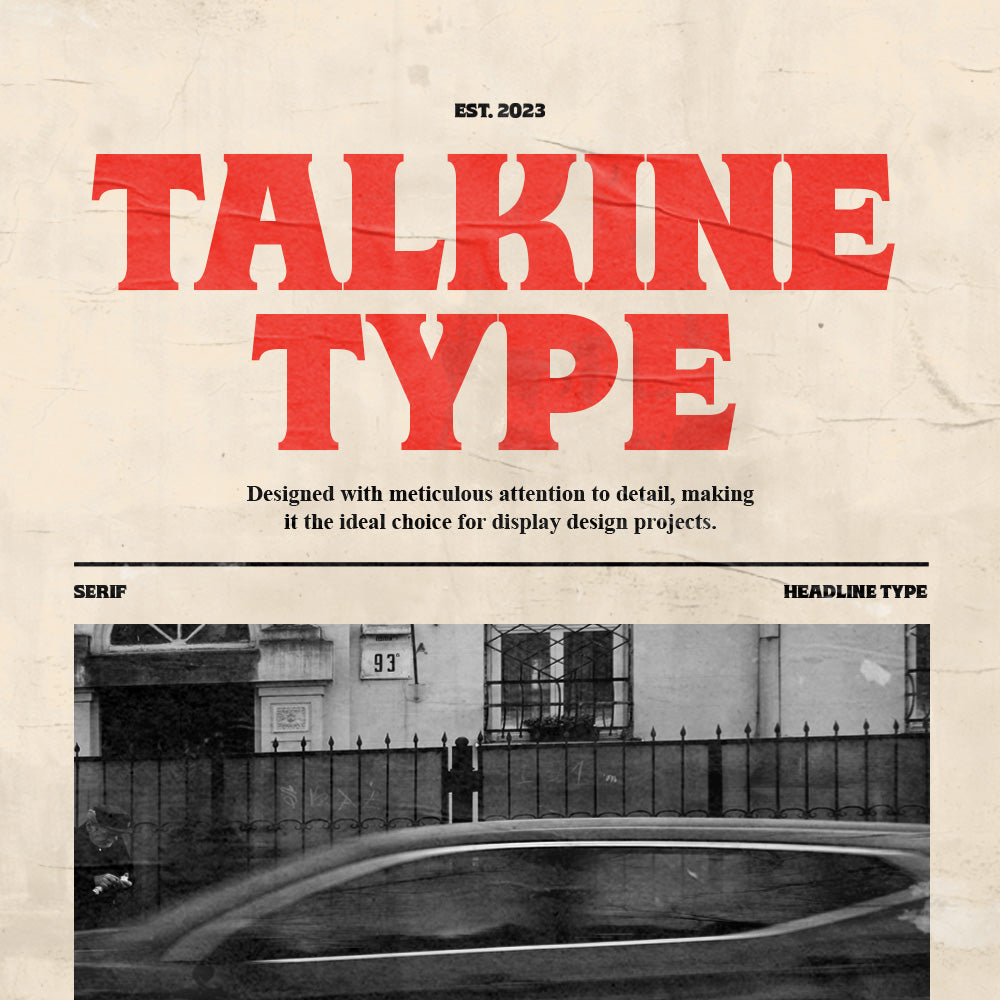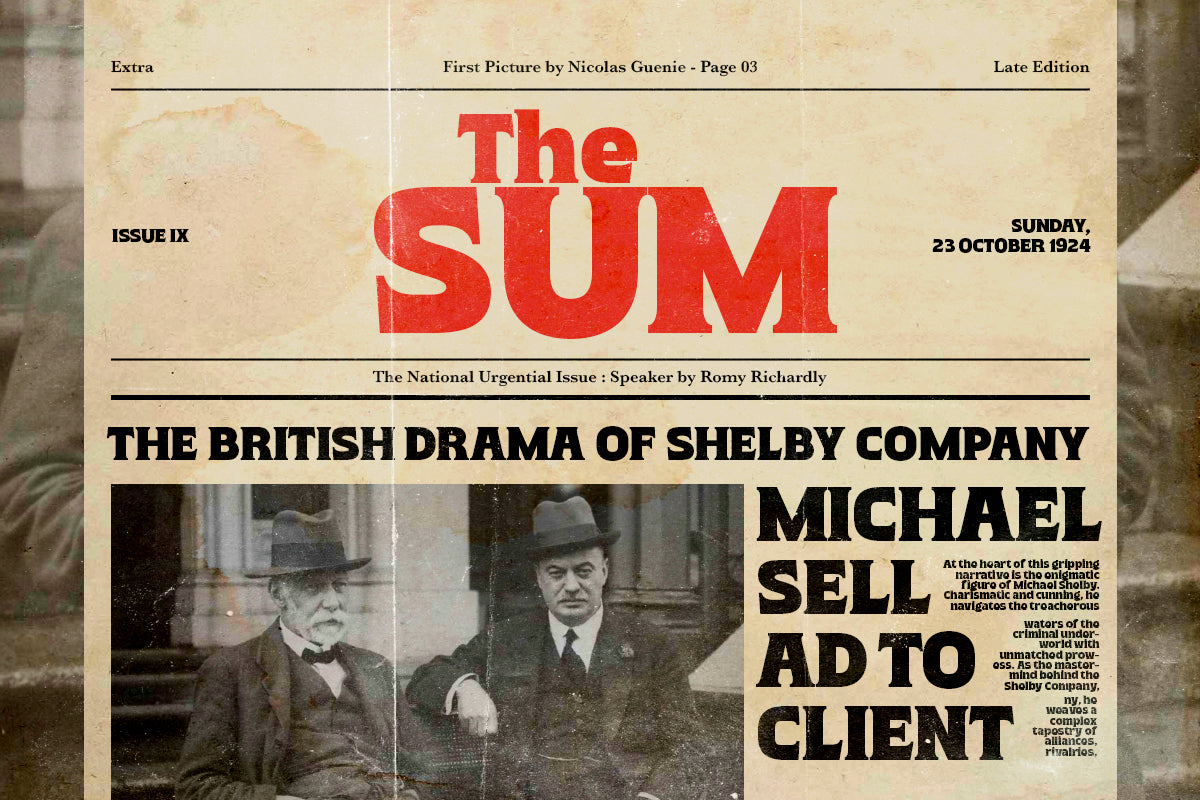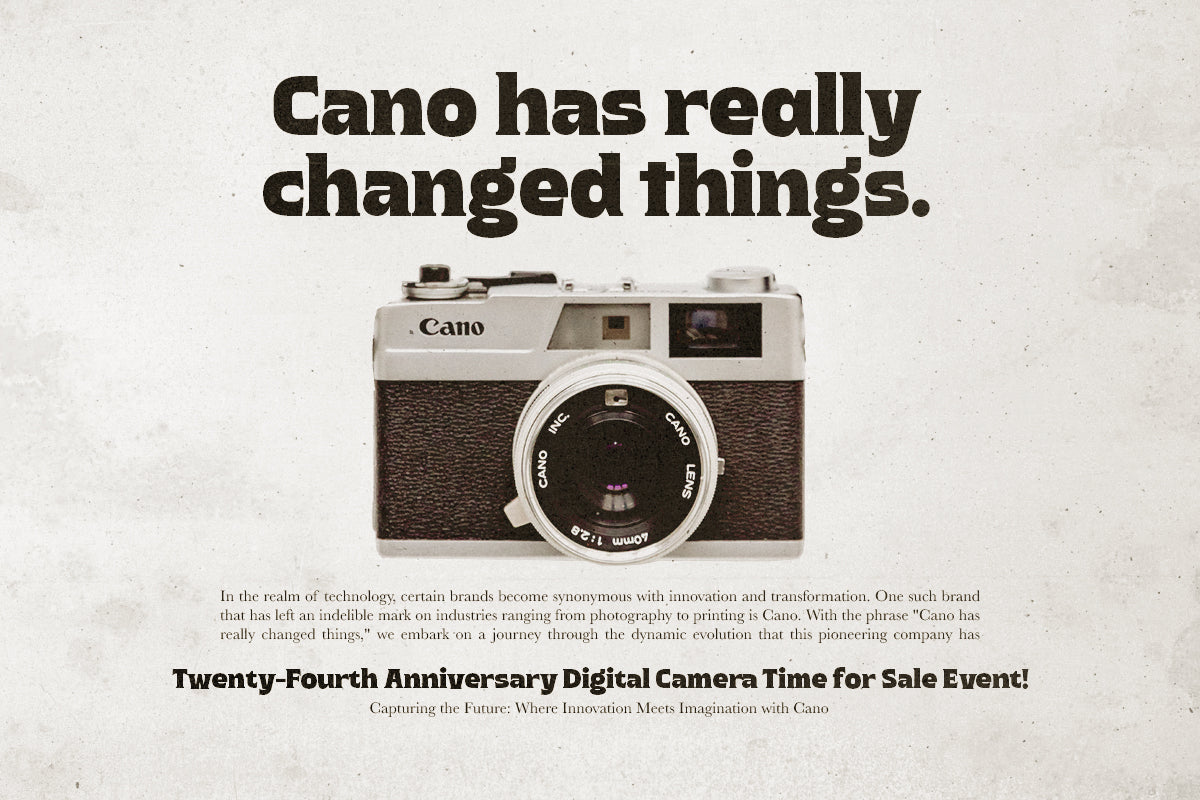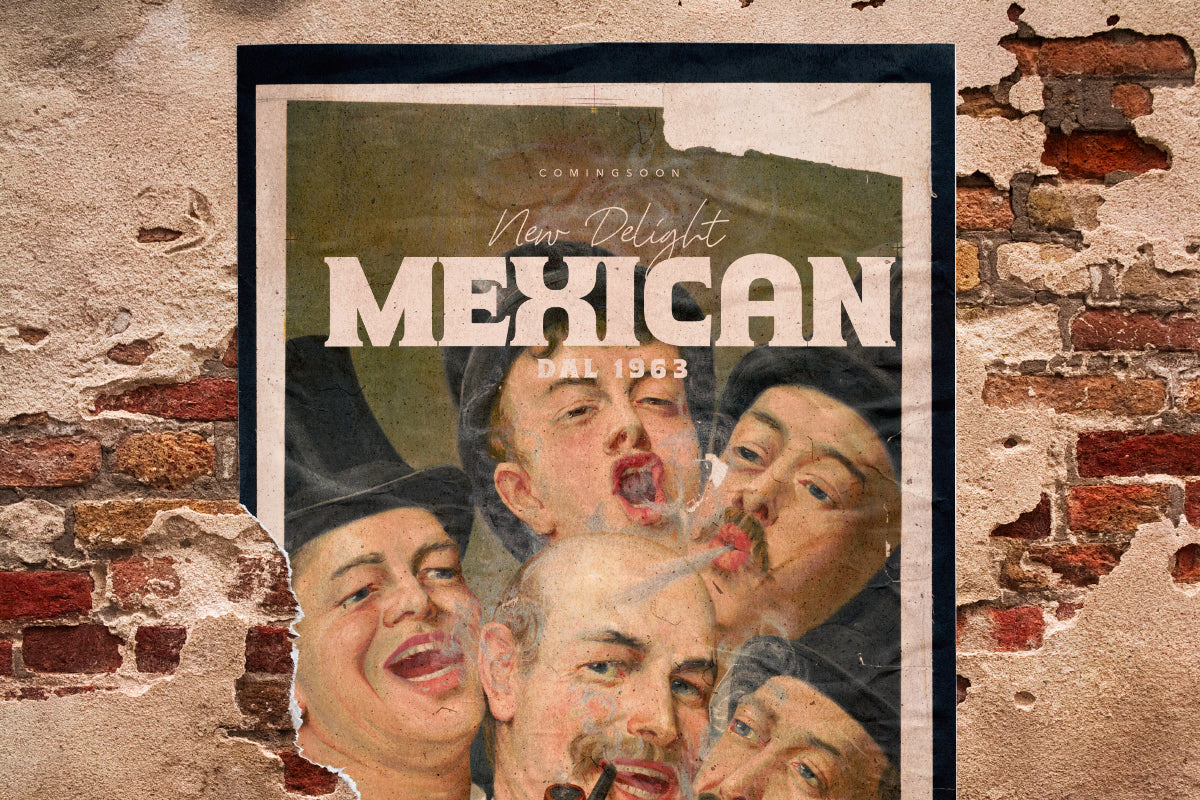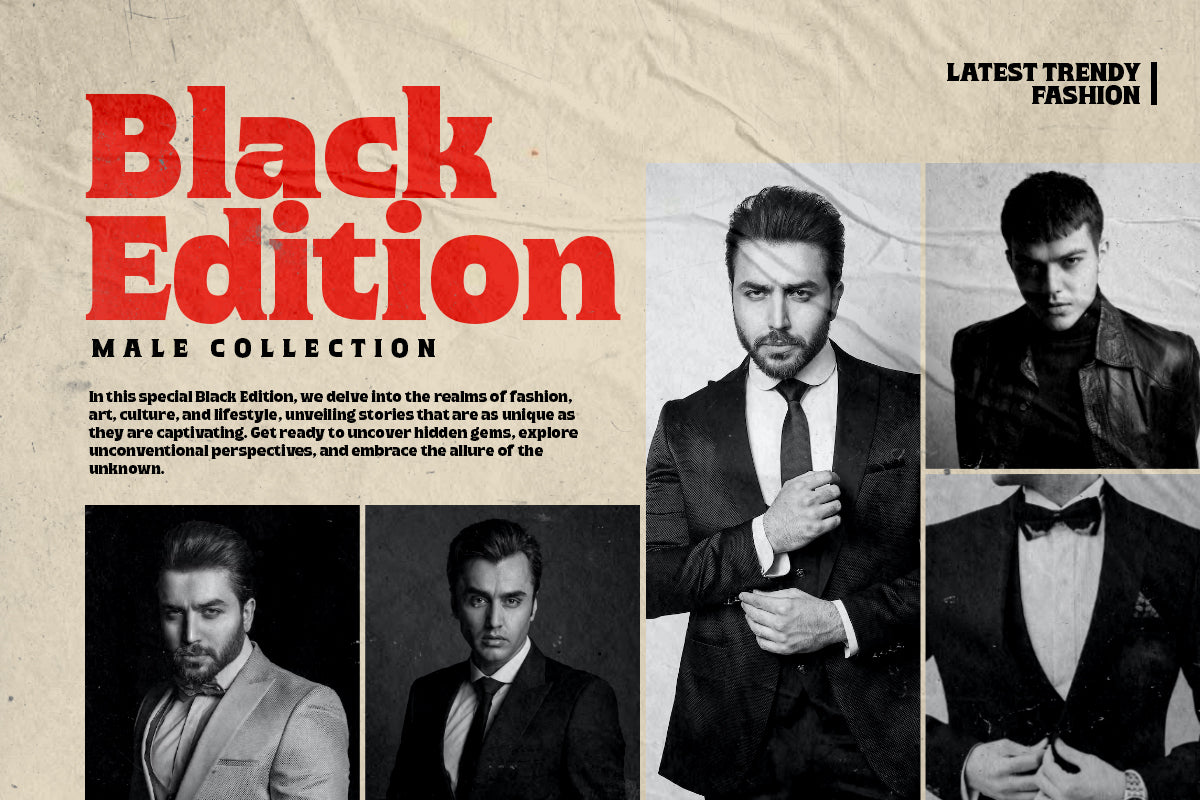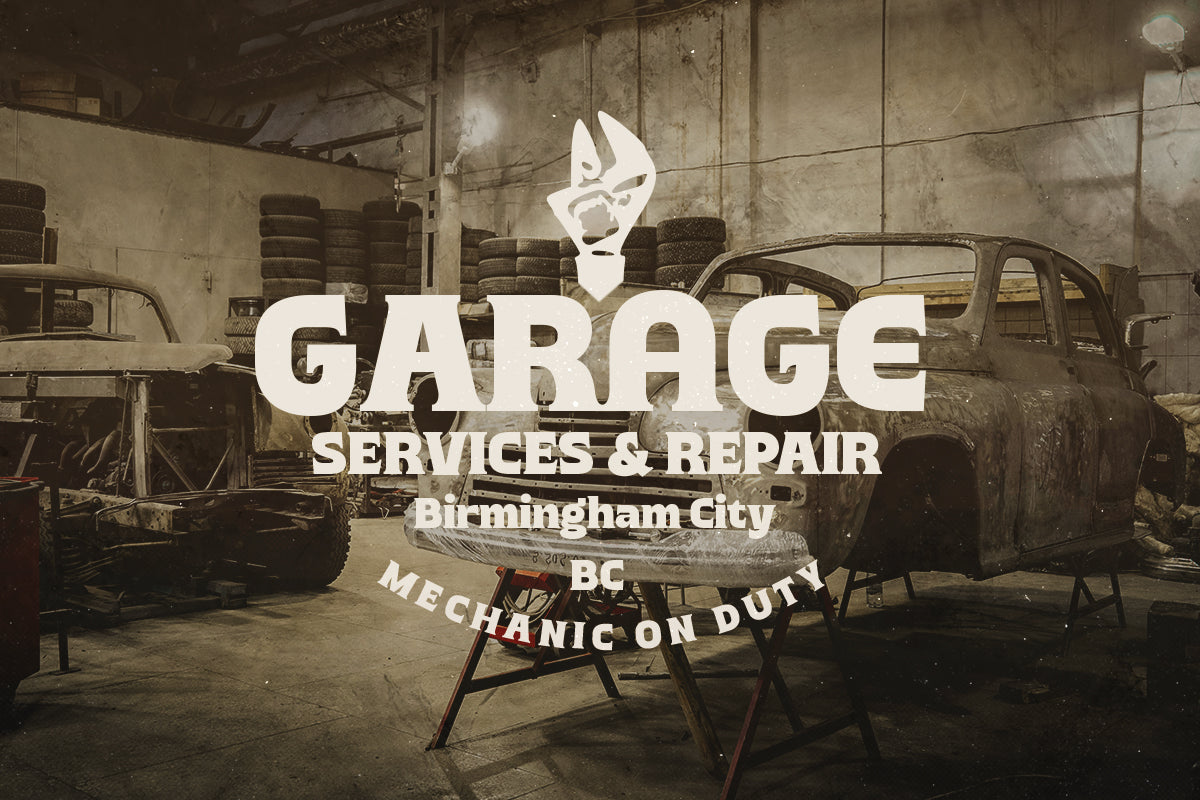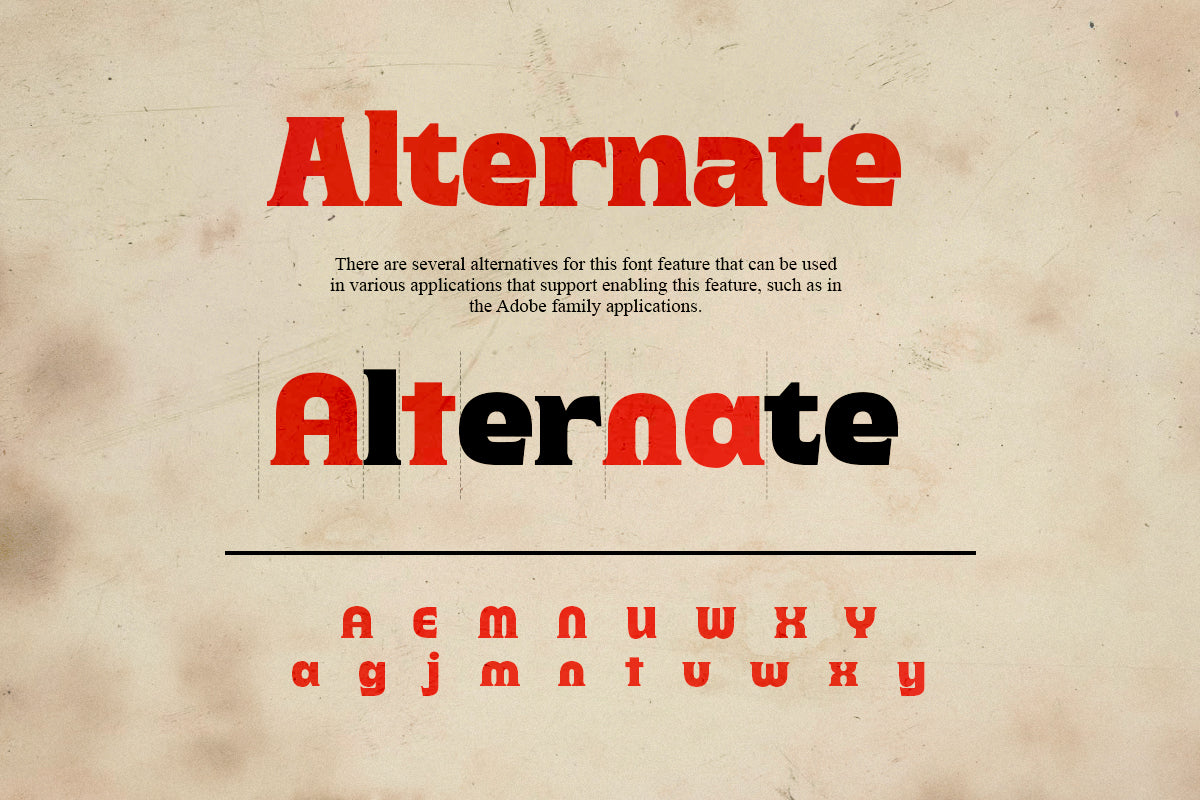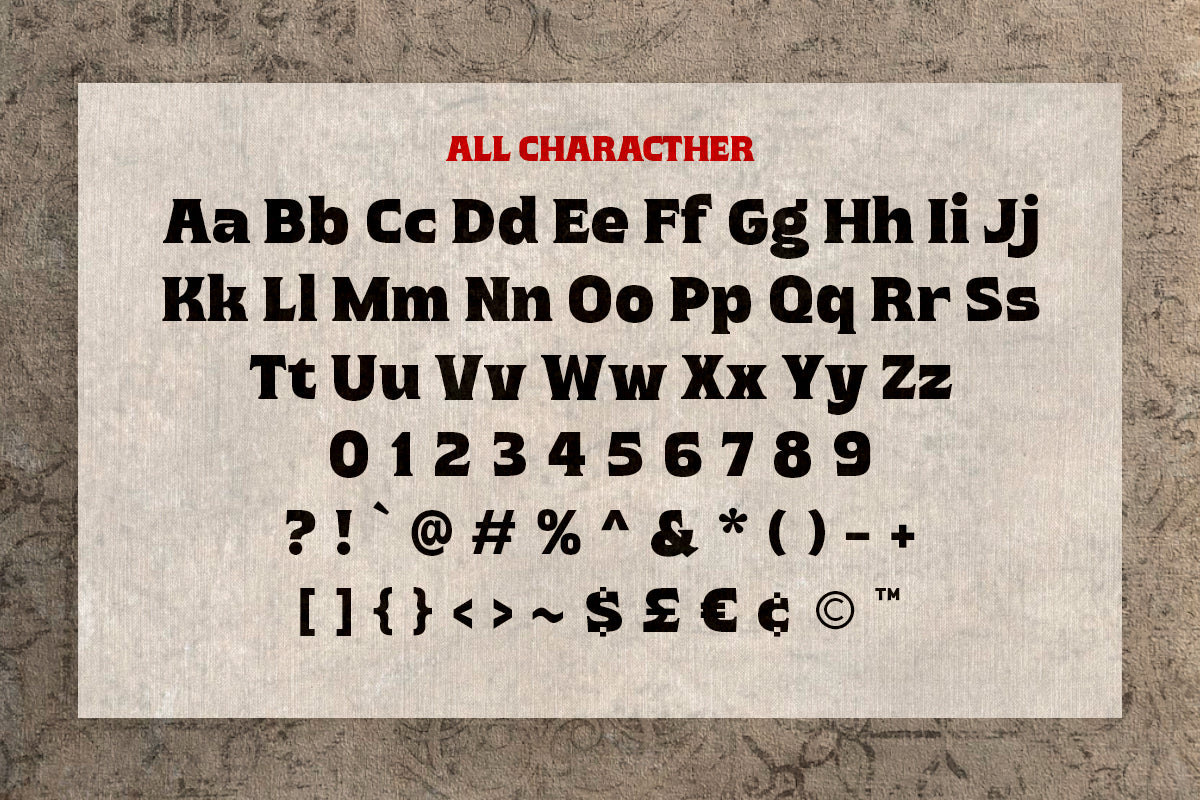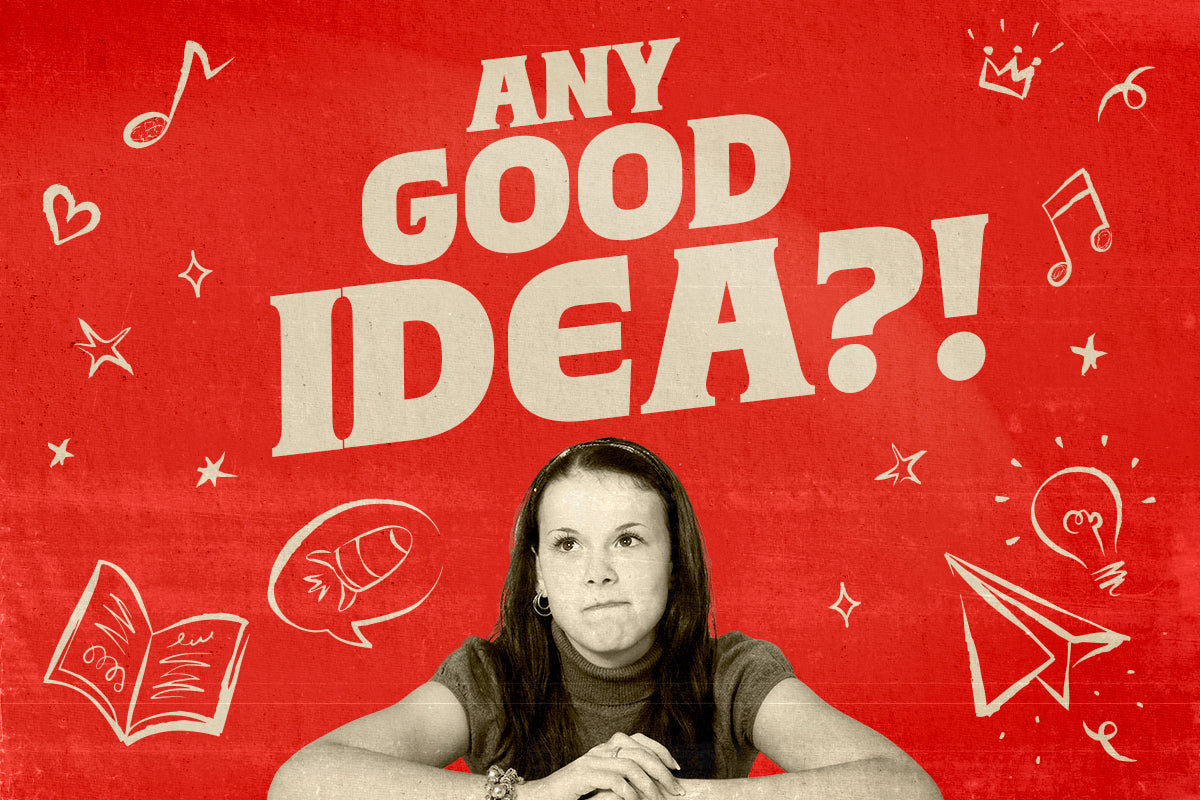
Talkine - Bold Headline Font
Talkine is a bold slab serif font featuring alternates, designed for creating impactful headlines with a strong visual presence. It supports multiple languages and is suitable for vintage and rough design projects.